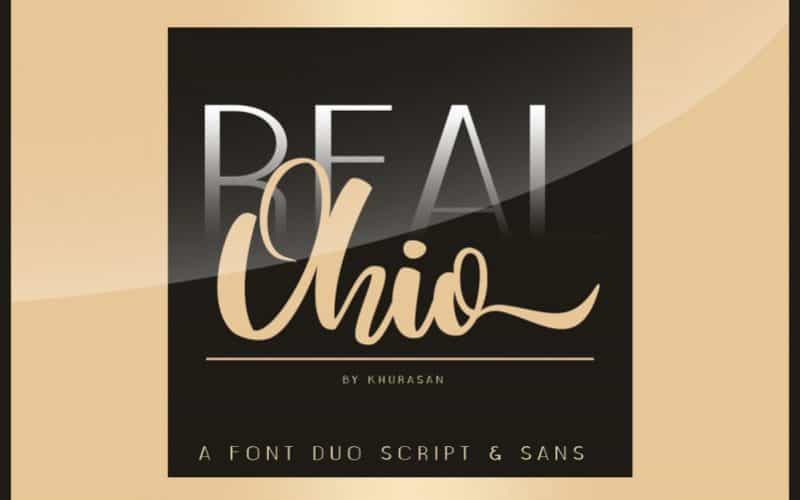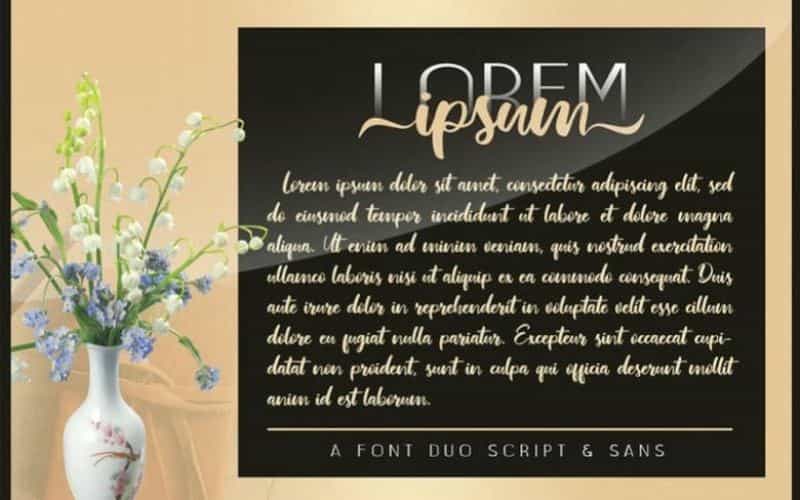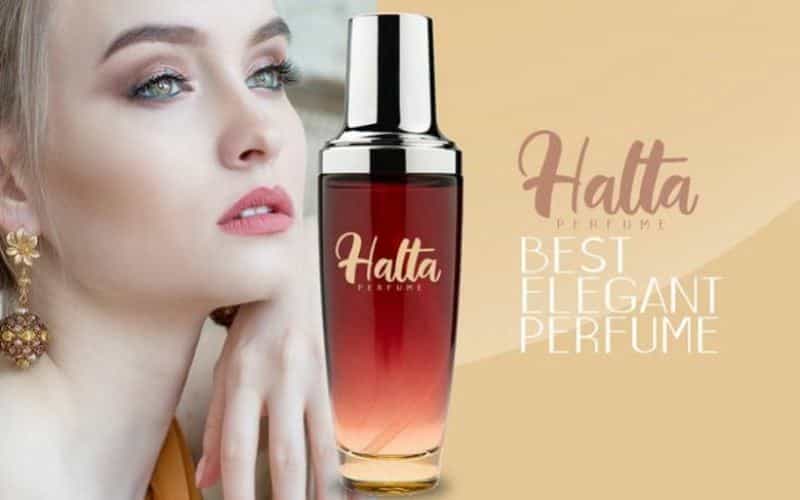
Real Ohio Font Duo
The Real Ohio Font is a cool modern script font, new & modern style which goes very well with Real Ohio Sans font. You can mix script and sans to have fantastic outcomes. The Real Ohio Font is perfect for logo, branding, greeting card, poster and any other design that you can think of.